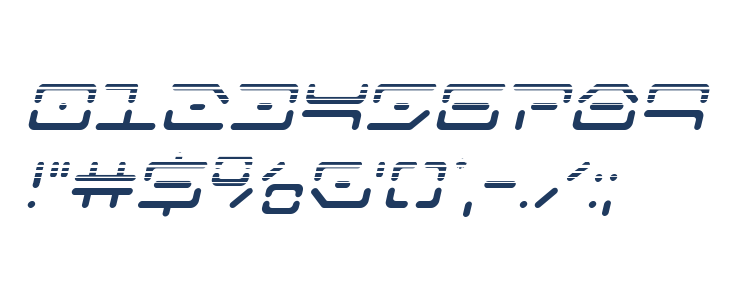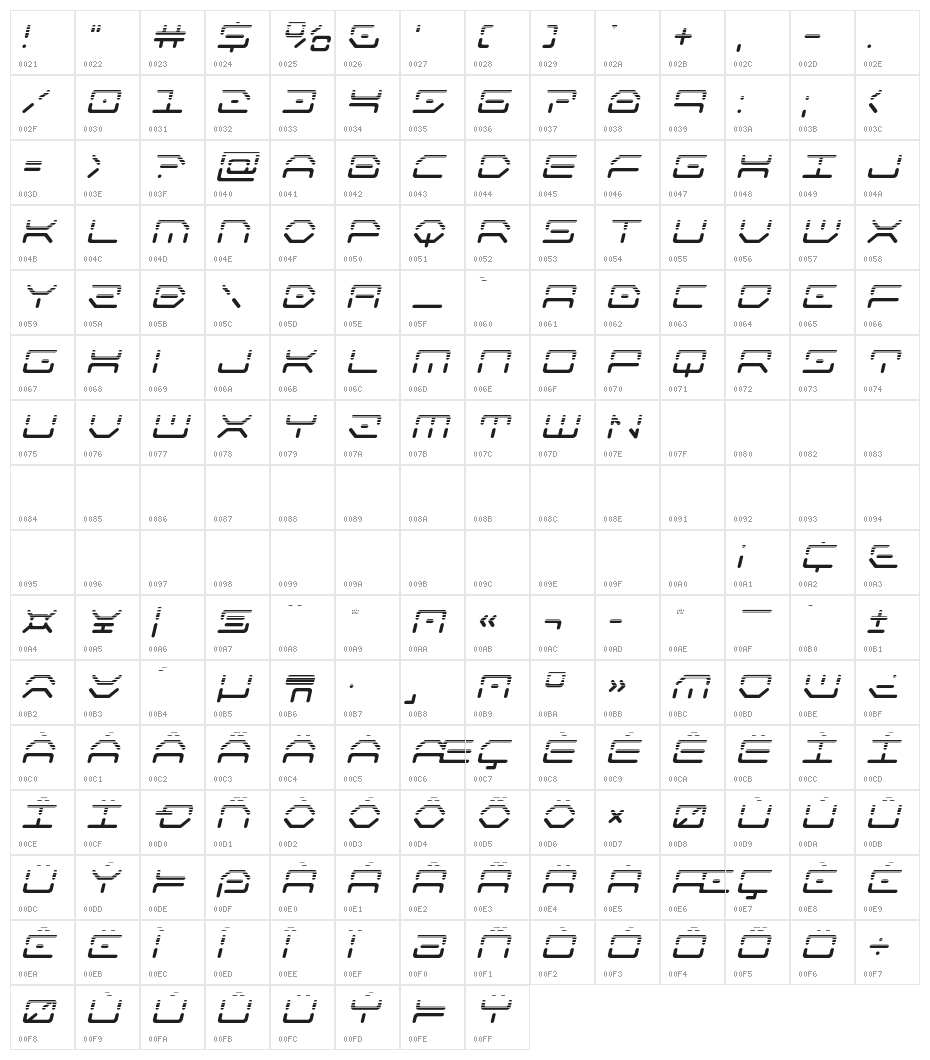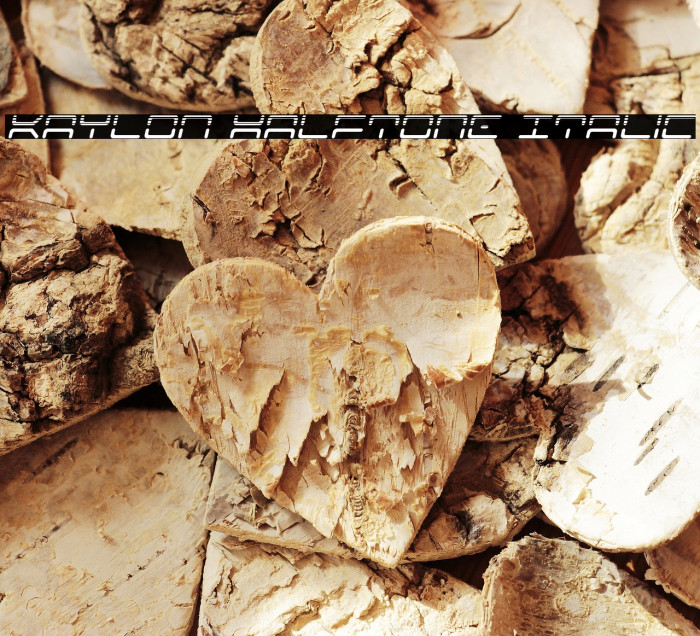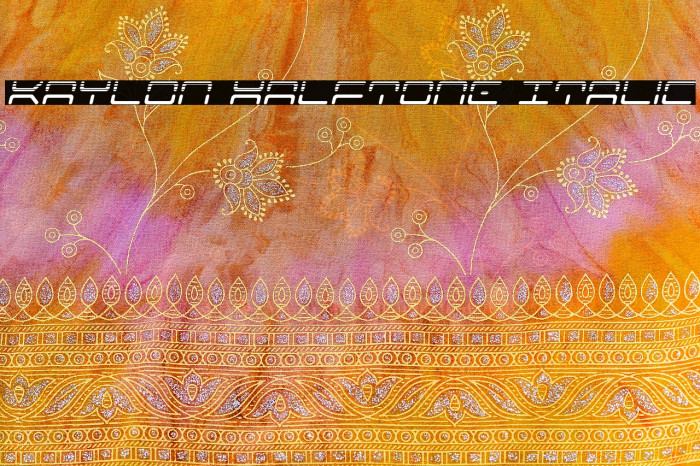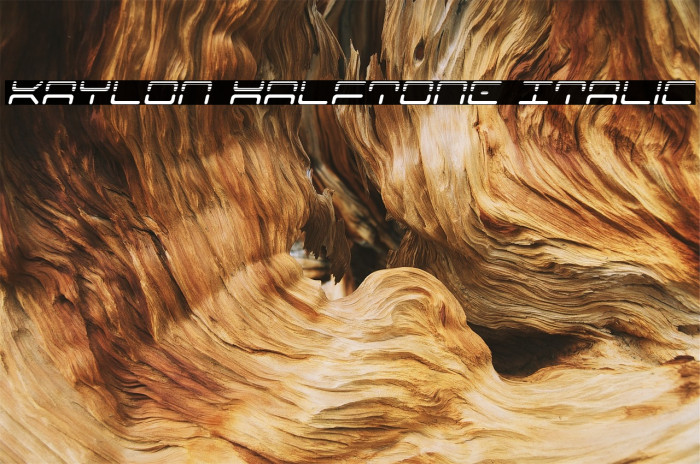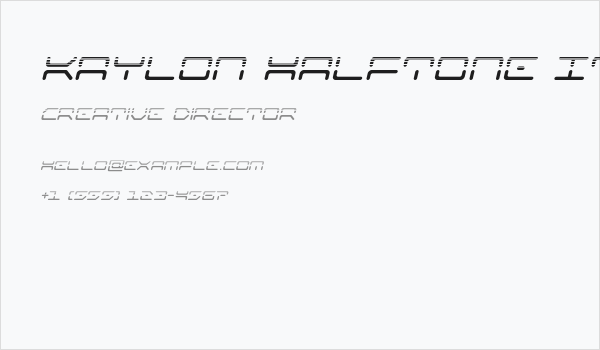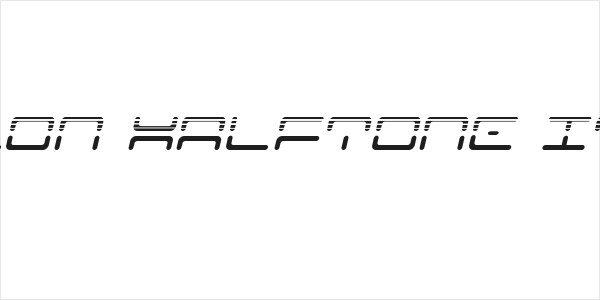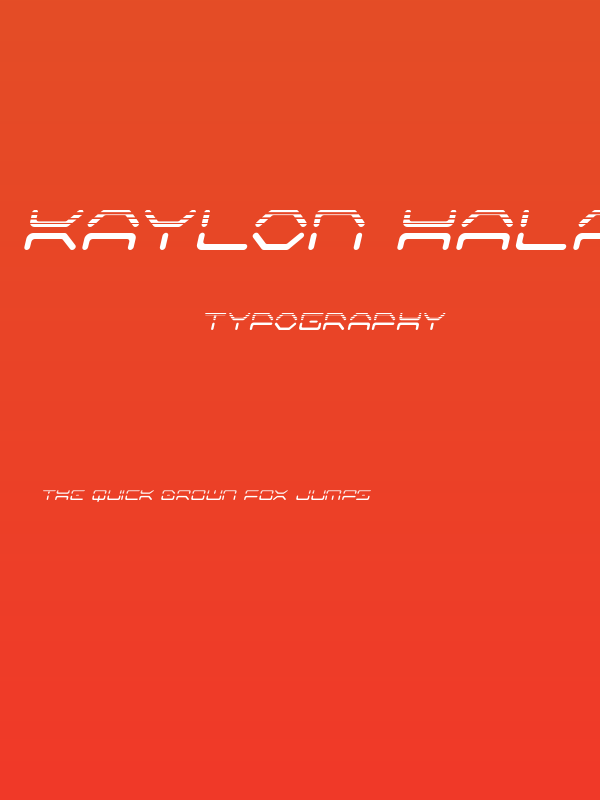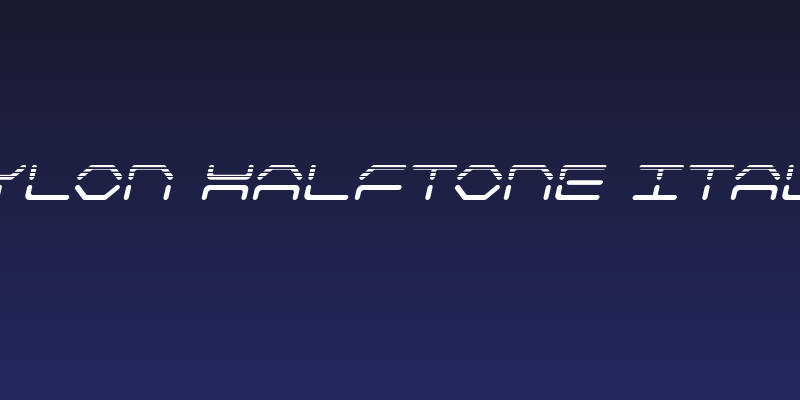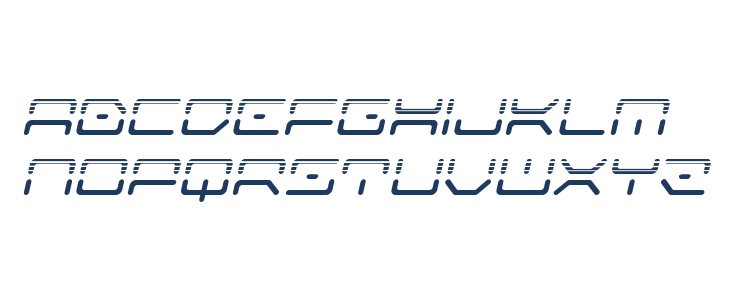
Kaylon Halftone Italic Font
Kaylon Halftone Italic Description
This font features a futuristic and digital aesthetic with a halftone effect that gives it a unique, modern look. The characters are constructed with a series of dots and lines, creating a sense of movement and dynamism. The italic slant adds to its sleek and forward-thinking design. Each letter is distinct, with a consistent pattern that maintains readability while offering a visually engaging experience. The font's geometric structure and halftone detailing make it stand out, ideal for projects that require a tech-savvy or avant-garde feel.
Proposed ProjectsIdeal for tech branding, digital art, futuristic posters, and innovative product packaging.